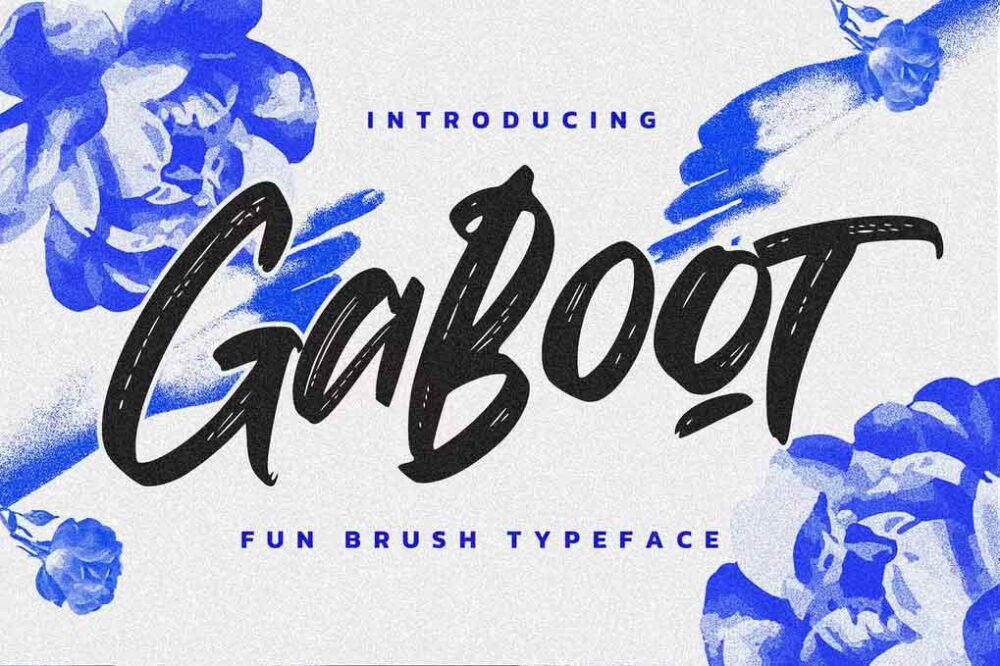
Gaboot Authentic Brush Font
Hello Everyone, introduce our new product Gaboot is a Freehand Written Font with a Brush Style and classy style, this font is great for your creative projects such as watermark on photography, and perfect for logos & branding, photography, invitation, watermark, advertisements, product designs, stationery, wedding designs, label, product packaging, special events or anything that need Slash Revolver taste. That is why Gaboot has an authentic and strong characteristics more natural look. You can activate Ligature OpenType panel and alternate glyphs.
• Standard glyphs
• Ligature glyphs
• Alternate glyphs
• Multilingual